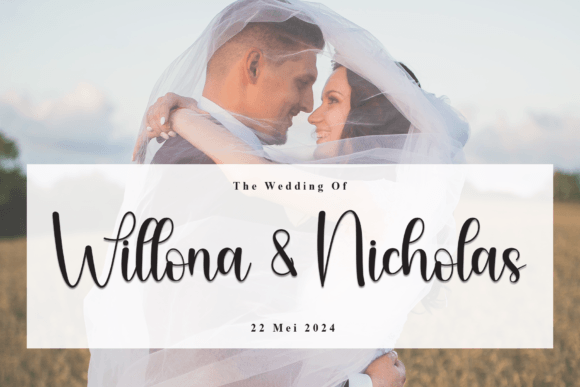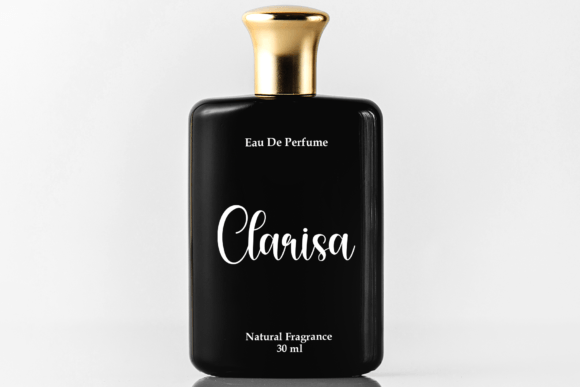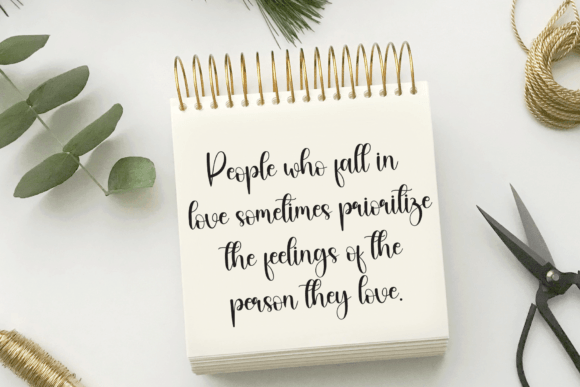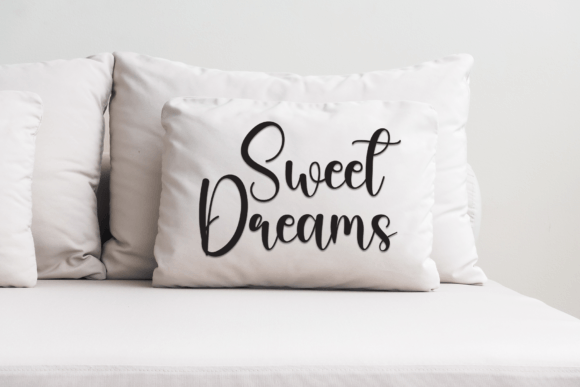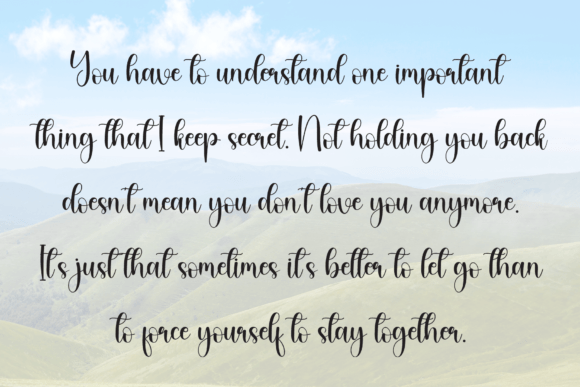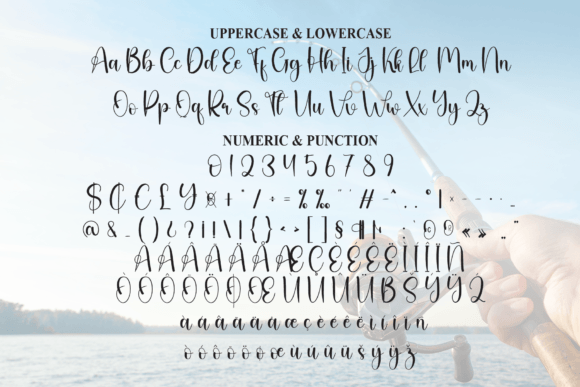
Finding the Perfect Catch: Introducing Fishing Font
Have you ever been browsing through a design project and stumbled upon that one font that just makes everything click? For me, it’s always a moment of pure joy, like reeling in a big catch. And that’s exactly what I experienced when I discovered Fishing Font – a stunning handwritten font that adds a touch of elegance and sophistication to any design.
Fishing Font is a beautifully crafted typeface inspired by timeless classic calligraphy. Its contemporary atmosphere and impeccable form make it the perfect addition to any design project. Whether you’re a seasoned designer or just starting out, Fishing Font is sure to impress. With its unique charm and versatility, it’s a valuable asset to have in your design toolkit.
- Unique Character Set: Fishing Font features a unique set of characters, including fishing-related icons, symbols, and glyphs, making it ideal for designers and artists working on fishing-themed projects.
Fishing Font Review
Fishing Font is an interesting choice for designers looking to add a touch of the outdoors to their work. ✨ One thing that works well is its unique, hand-drawn feel, which can add a lot of character to text-heavy designs. The font also includes a range of swashes and alternate characters that can be used to create a more dynamic and expressive look.
- ✨ Unique hand-drawn feel
- ✨ Range of swashes and alternate characters
- ✨ Supports multiple languages
However, there are some limitations to consider. ⚠️ The font may not be the best choice for body text, as its irregularities can make it difficult to read. Additionally, the swashes and alternate characters can be a bit overwhelming if not used judiciously. The font also feels a bit over-ornate at times, which can detract from the overall design.
- ⚠️ May not be suitable for body text
- ⚠️ Swashes and alternate characters can be overwhelming
- ⚠️ Feels over-ornate at times
Overall, Fishing Font is a great choice for designers who want to add a touch of whimsy and personality to their work. Just be sure to use it sparingly and in the right context.
Getting the Most Out of Fishing Font
To get the most out of Fishing Font, consider the following tips:
Use it sparingly to add a touch of whimsy to your designs.
Pair it with other fonts to create a unique and eye-catching look.
Experiment with different font sizes and styles to add emphasis to your text.
Fishing Font is commonly used in:
Water-themed designs, such as aquarium or beach-inspired graphics.
Children’s educational materials, such as worksheets and coloring books.
Marketing materials, such as advertisements and promotional materials, that require a playful and eye-catching font.
Alternatives to Fishing Font for Designers
Great Vibes is a beautiful, handwritten font that’s perfect for creating a relaxed and casual atmosphere. It’s ideal for use in invitations, menus, and other materials where you want to convey a sense of friendliness and approachability.
Compared to Fishing Font, Great Vibes has a more laid-back feel and is better suited for everyday use. While Fishing Font has a more rustic, vintage vibe, Great Vibes is more versatile and can be used in a variety of settings.
Carolyna Pro is a elegant, modern script font that’s perfect for creating a sophisticated and refined atmosphere. It’s ideal for use in branding, advertising, and other materials where you want to convey a sense of luxury and sophistication.